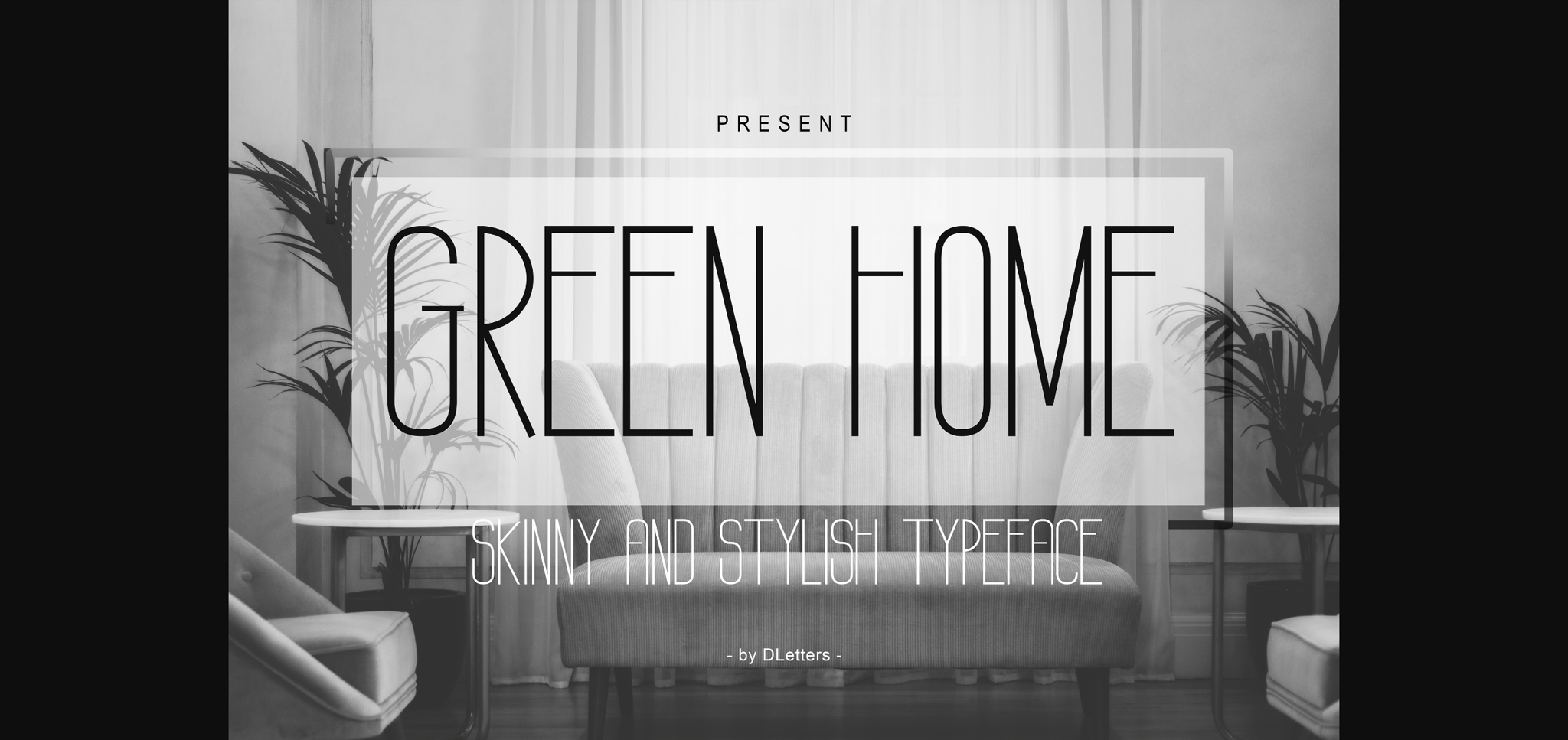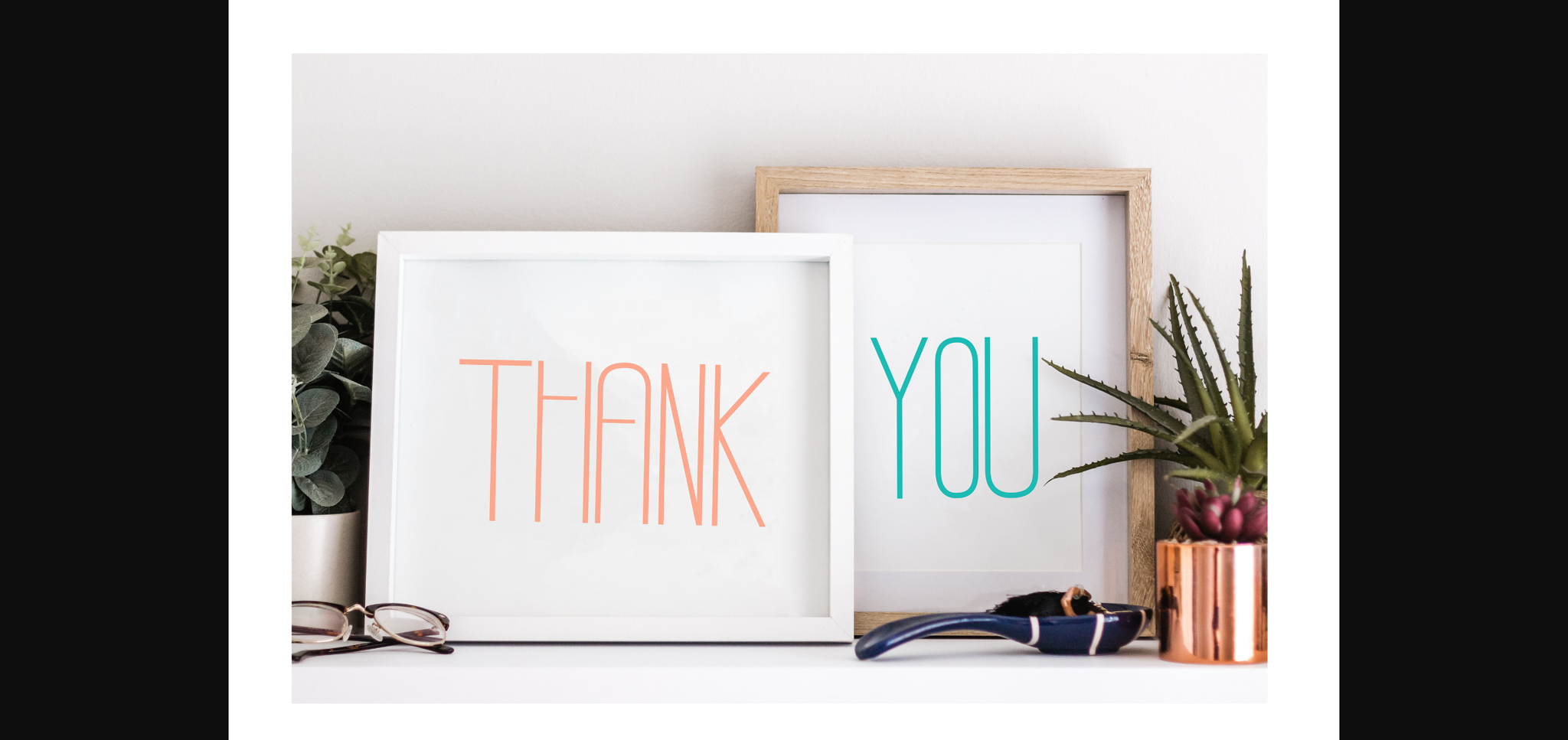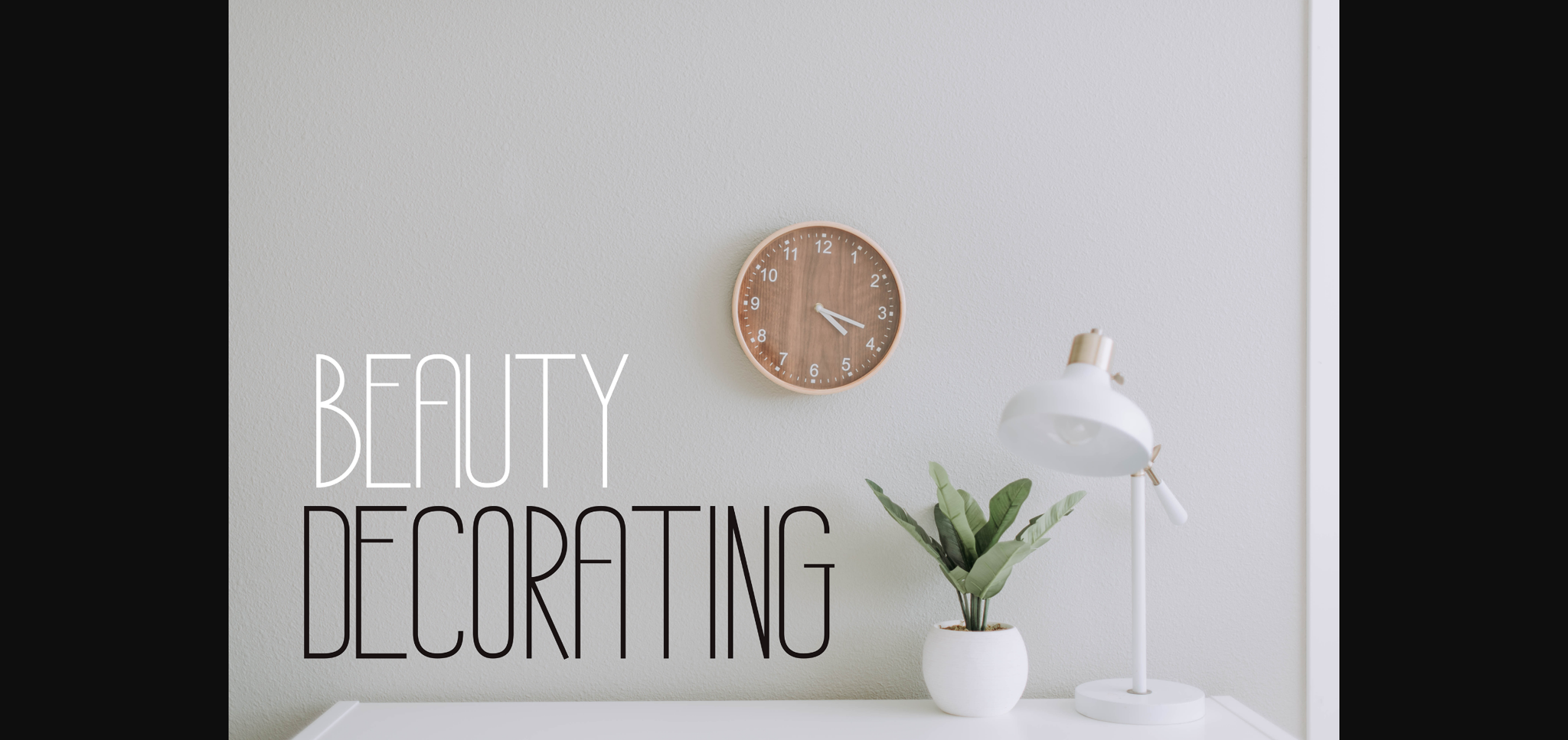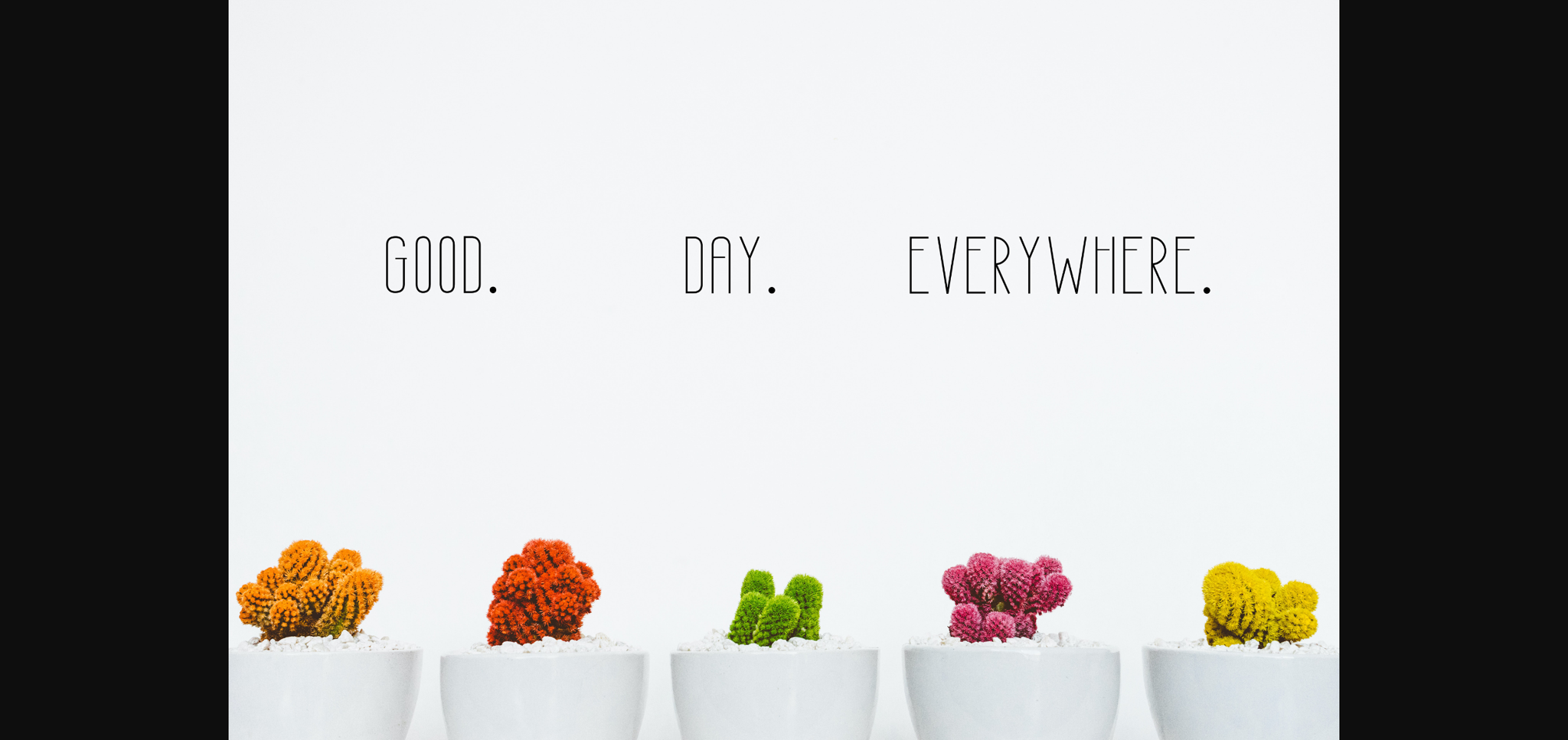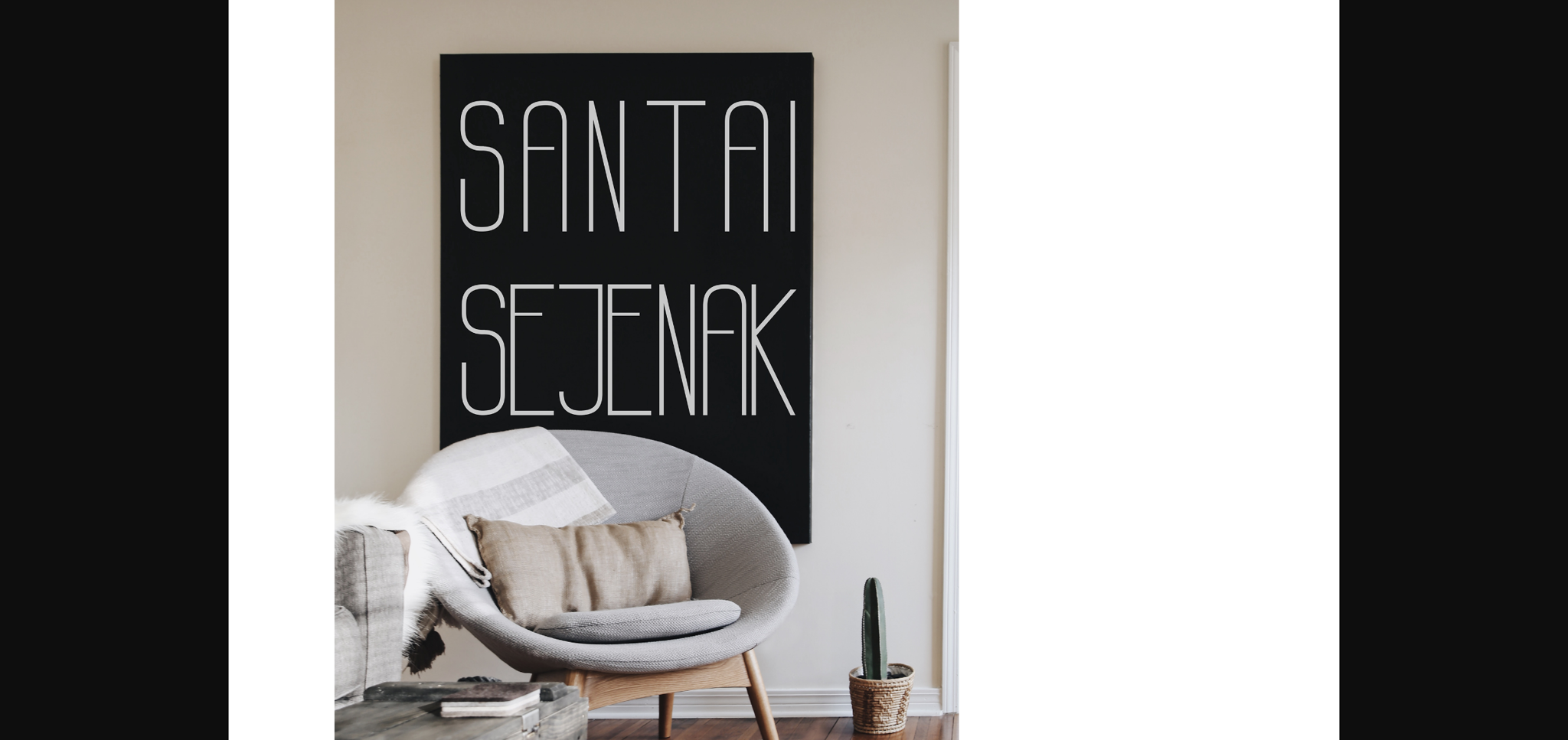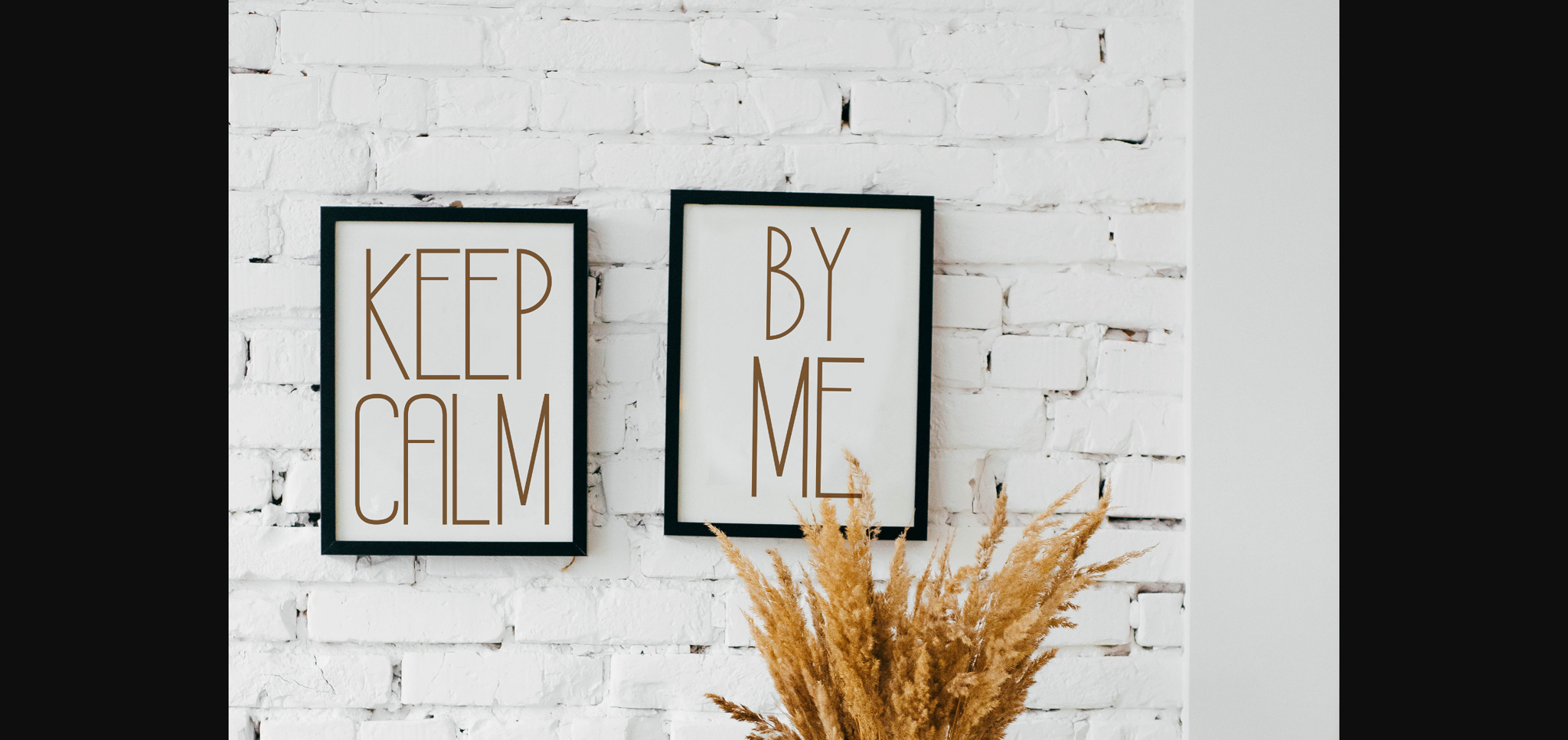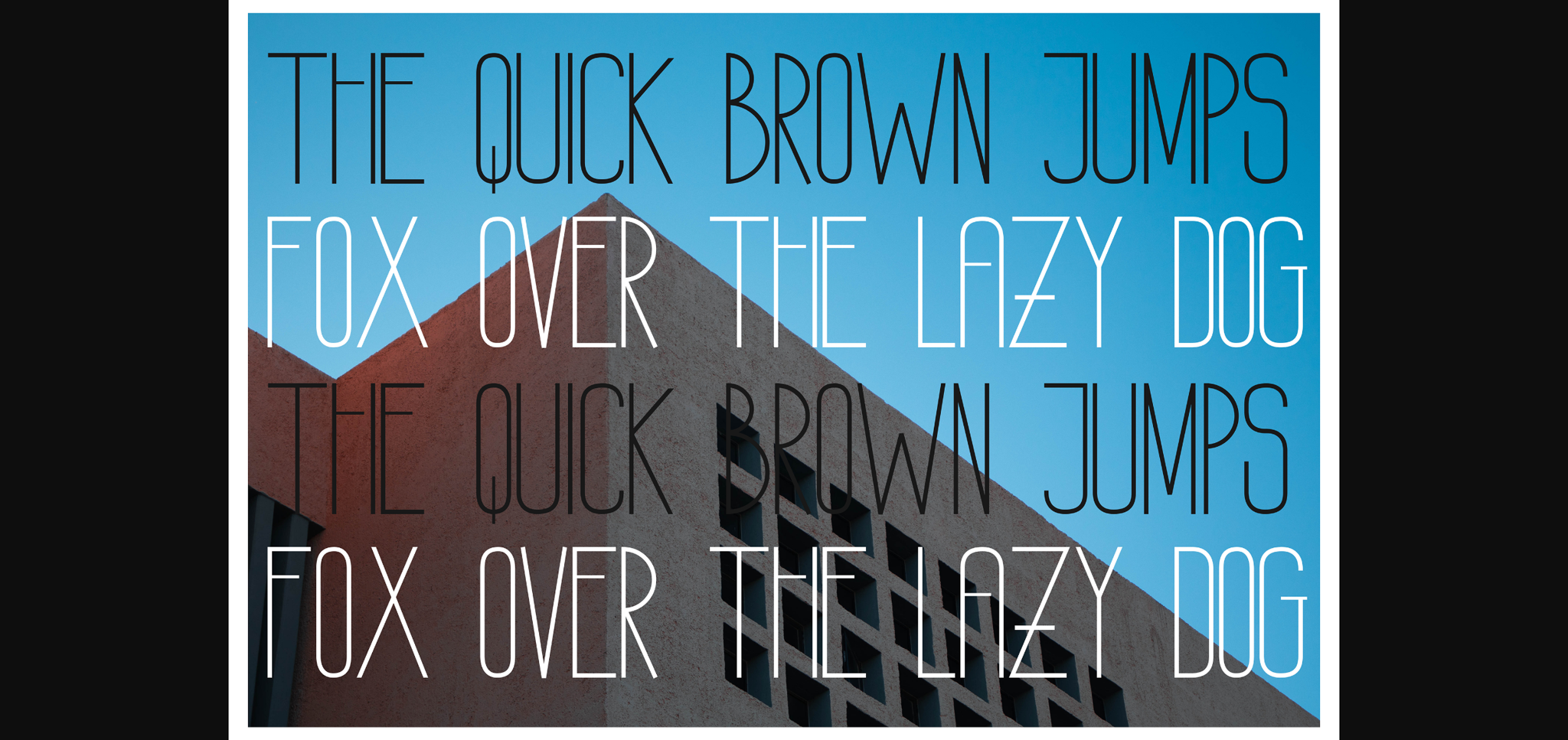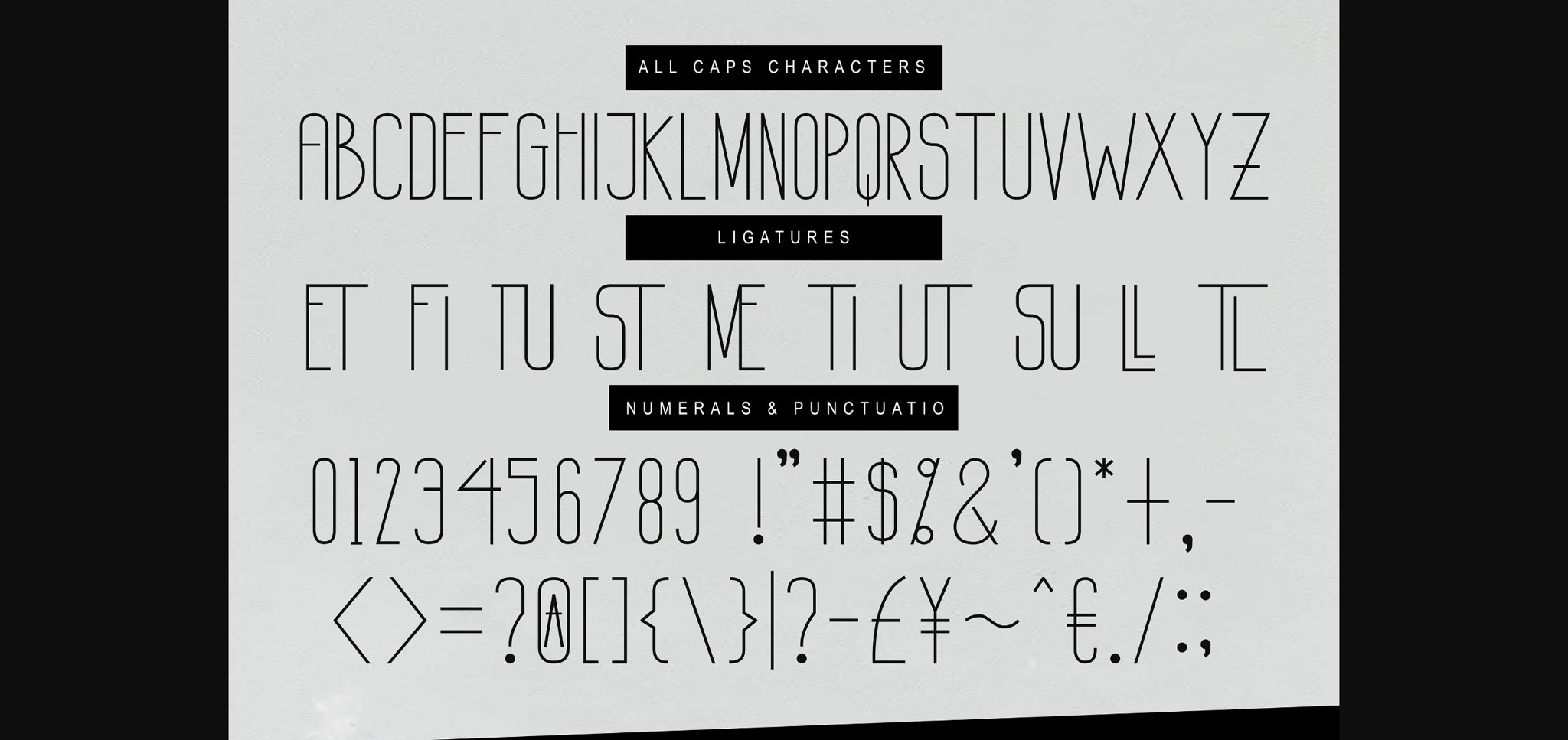
Green Home Font
About Green Home Font
Green Home is a stylish and thin sans serif font. It is very suitable as a complementary font for any of your photography and creative works.